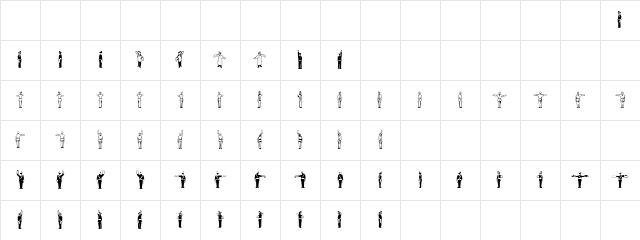
LTTraffity Regular
Design Context for LTTraffity
LTTraffity is a composed and adaptable typeface that performs quietly and consistently across a wide range of design contexts.